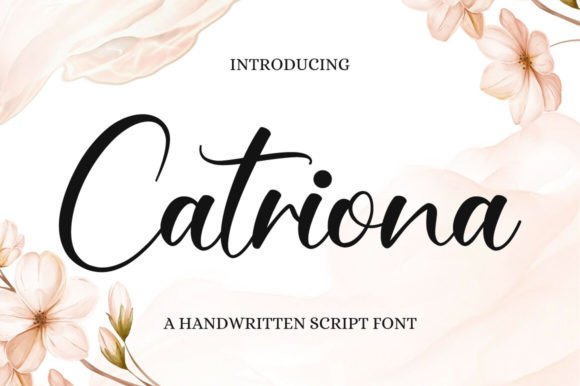
Introducing Catriona Font - The Epitome of Elegance and Timeless Beauty
In a world of fleeting trends and monotonous designs, Catriona Font emerges as a beacon of enduring charm and sophistication. Inspired by the art of traditional calligraphy, Catriona effortlessly captures the essence of timeless beauty, rendering it in a modern and versatile digital format.
Step into a world where your creative visions are brought to life with effortless grace and unparalleled elegance. Catriona's meticulously crafted curves and flourishes dance across the page, imbuing your designs with a touch of sophistication and allure.
Unleash the boundless potential of the Catriona Font, a versatile masterpiece that transcends the boundaries of time and genre. From the delicate intricacies of wedding invitations to the bold statements of branding and logos, Catriona adapts seamlessly, adding a touch of magic to every project it graces.
With Catriona, you'll never be constrained by creative limitations. Its diverse range of weights and styles empowers you to effortlessly convey a multitude of emotions and messages. Whether you seek a delicate whisper or a bold declaration, Catriona responds with unwavering grace and precision.